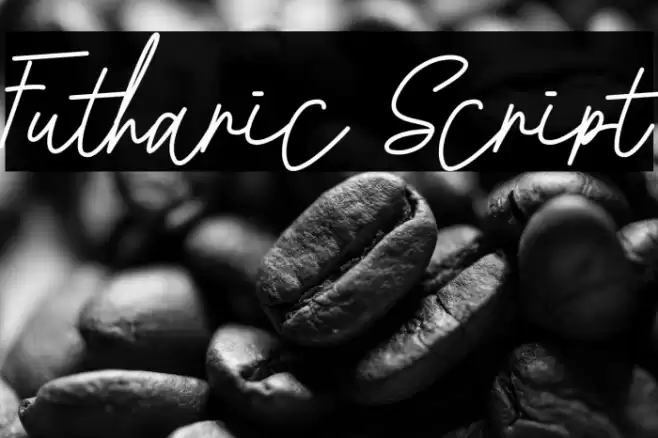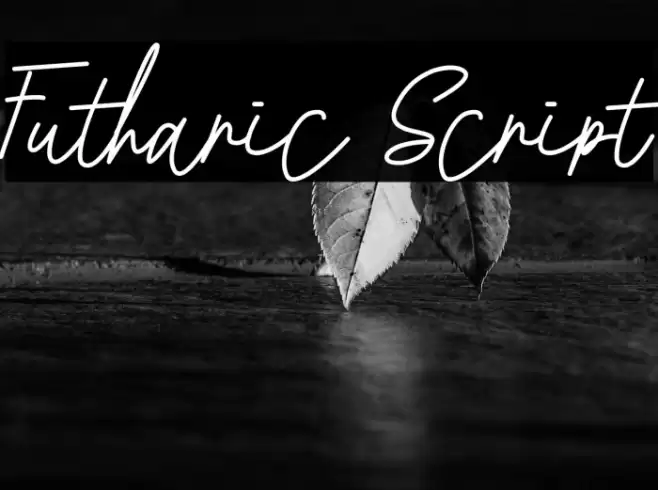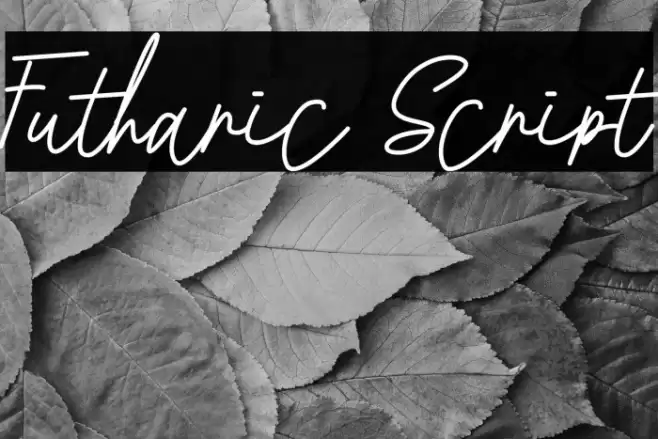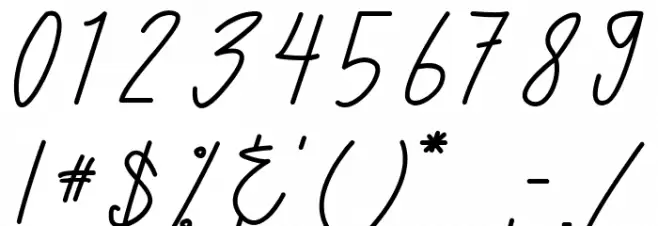
Futharic Script Font
Futharic Script Description
This font exudes a casual and fluid handwritten style, characterized by its smooth, flowing lines and natural curves. The letters are connected in a cursive manner, giving it a personal and informal feel. The uppercase letters maintain a consistent height, while the lowercase letters exhibit a slight slant, enhancing the dynamic appearance. The numerals and special characters are crafted with the same fluidity, ensuring a cohesive look across all characters. This script is perfect for conveying a sense of warmth and approachability.
A casual, fluid handwritten script with smooth, connected letters from Regular fonts.
- Proposed Projects: Ideal for personal notes, invitations, greeting cards, and branding that requires a personal touch.
- Overall Style: Casual
- Use Case: Logos, Invitations, Personal notes